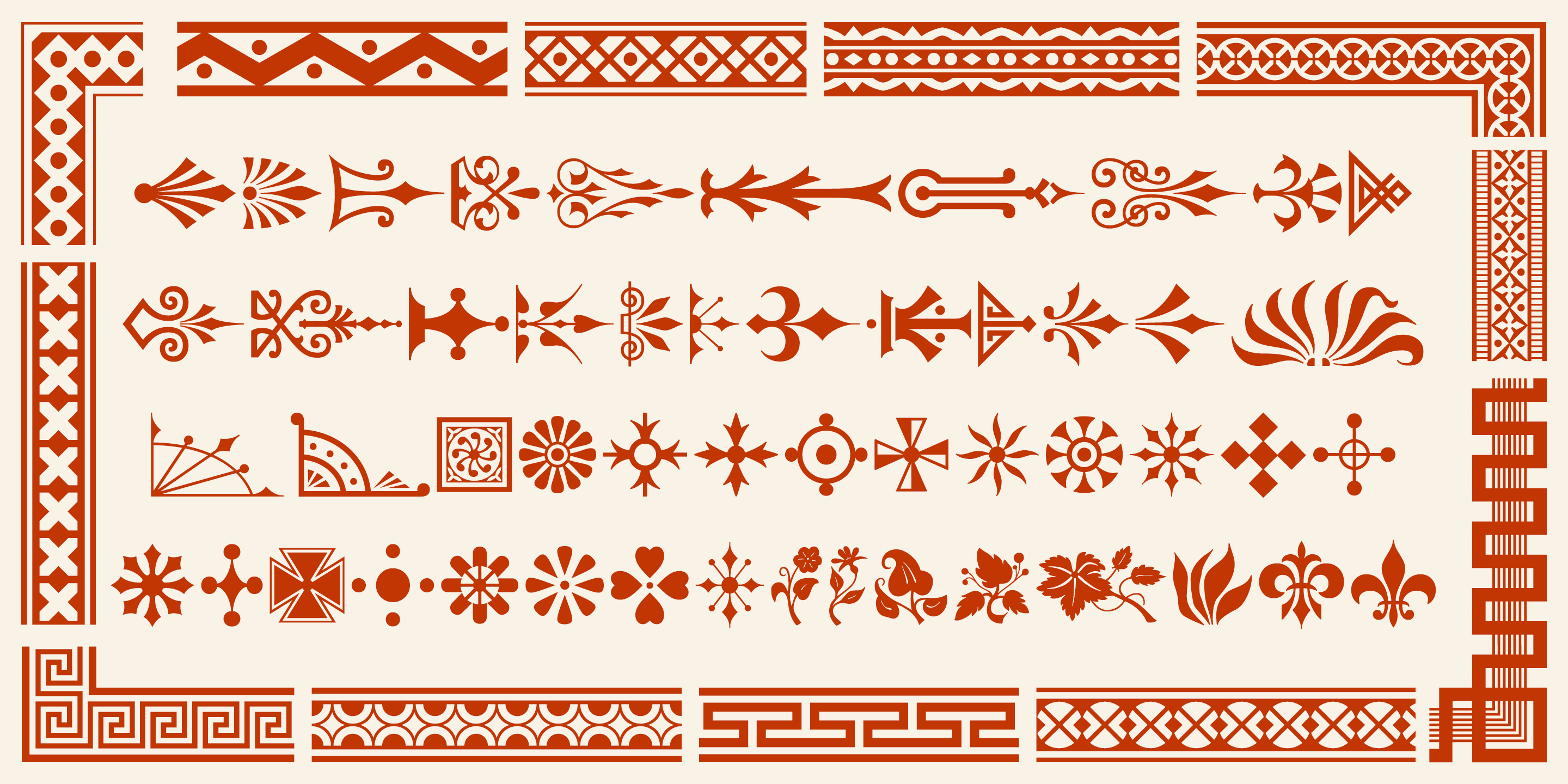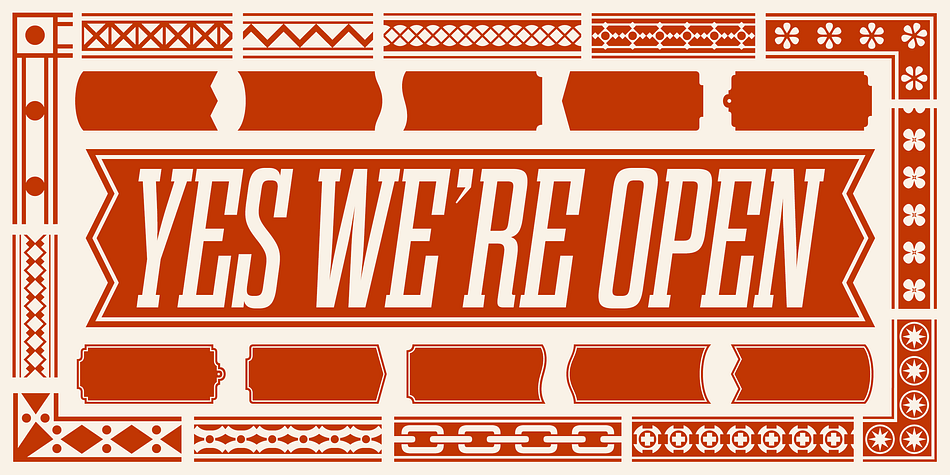
Gothic Extras is a dingbat font family. This typeface has five styles and was published by Dharma Type.
-Dharma Gothic
-Dharma Slab
-Rama Gothic
-Rama Slab
This family include borders, ornaments and frames designed using vintage catalog of Hamilton in 1800s as a model.